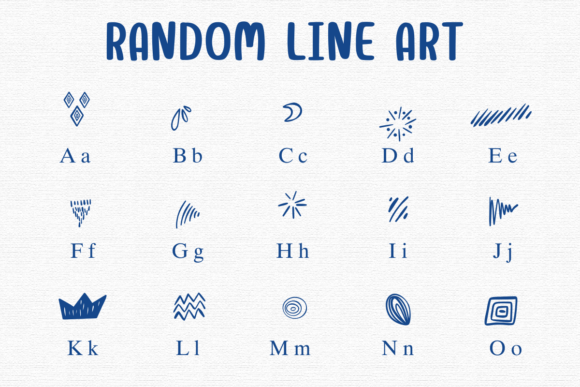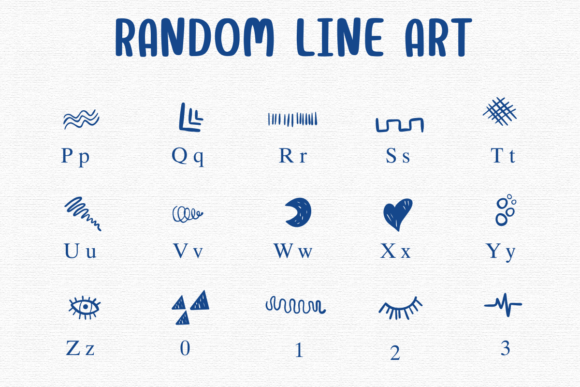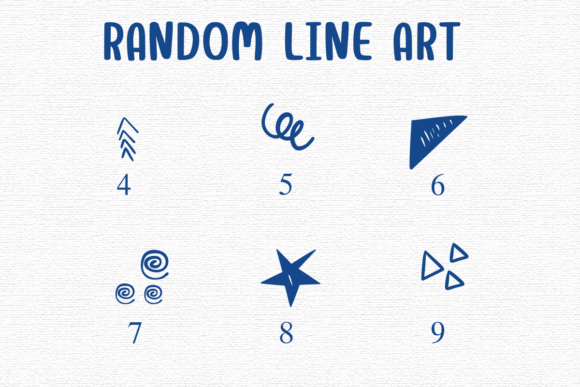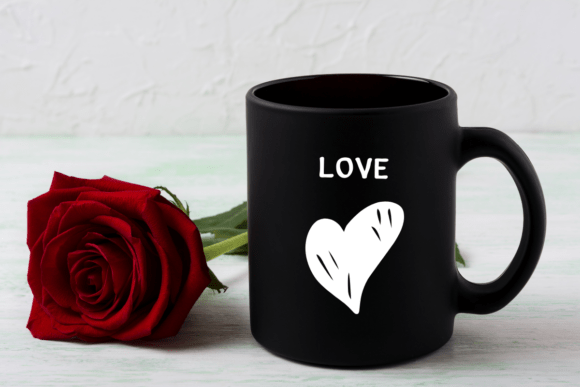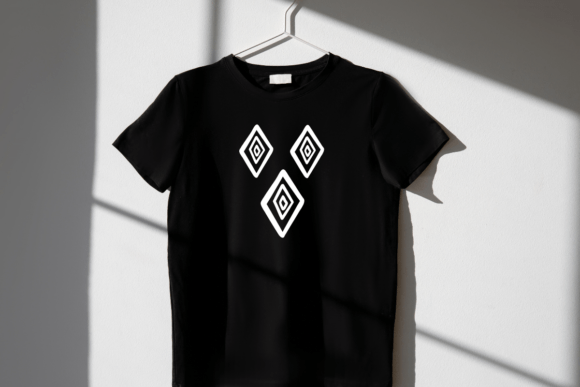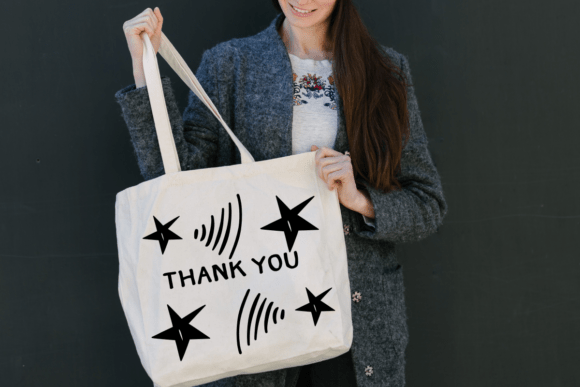
Introduction to Random Line Art Font
Remember that moment when you stared at a blank canvas, trying to come up with the perfect idea for your next creative project? You want something that will grab the viewer’s attention, something unique and captivating. That’s where the Random Line Art Font comes in – a quirky and abstract dingbats font that will add an extra layer of creativity to your work.
As a valuable design resource, the Random Line Art Font offers a high-quality collection of spontaneous lines, scribbles, shapes, and symbols. Whether you’re working on a poster, branding accents, or artistic layout elements, this font is perfect for adding a creative edge. And the best part? It’s available for free download, making it an accessible design tool for any creative project.
With its transparent background, the Random Line Art Font is versatile and can be used in a variety of design contexts. From backgrounds to standalone design elements, this font is sure to bring an extra touch of personality to your work. So why settle for ordinary when you can add a dash of whimsy with the Random Line Art Font?
Key Features of Random Line Art Font
- Unique Line Art Design: A high-quality design resource featuring intricate line art illustrations.
- Transparent Background: Ideal for use on any background, ensuring seamless integration into your creative project.
- High-Resolution Graphics: Designed at 300 DPI for high-quality prints and digital displays.
- Vector Graphics: Scalable to any size without loss of quality, making it perfect for large-scale designs and prints.
- Perfect for Creative Projects: Suitable for a variety of creative projects, including illustrations, graphics, and typography-based designs.
Honest Review: Random Line Art Font
I recently had the chance to work with the Random Line Art Font, and I must say it’s been a fun addition to my design resource library. The high quality of this font is undeniable, with its unique, hand-drawn style making it perfect for creative projects that need a personal touch.
- ✨ The transparent background makes it easy to use in any design scenario, whether it’s for digital or print projects.
- ✨ The font is highly customizable, allowing me to adjust the line width and spacing to fit my design needs.
- ⚠️ The font may not be suitable for projects that require a lot of text, as the hand-drawn style can become overwhelming.
- ⚠️ The font is not available in as many languages as I would like, which can limit its use in international projects.
Overall, I’m impressed with the Random Line Art Font. It’s a great addition to any design library, and its unique style makes it perfect for creative projects that need a personal touch. While it may have some limitations, the benefits far outweigh the drawbacks.